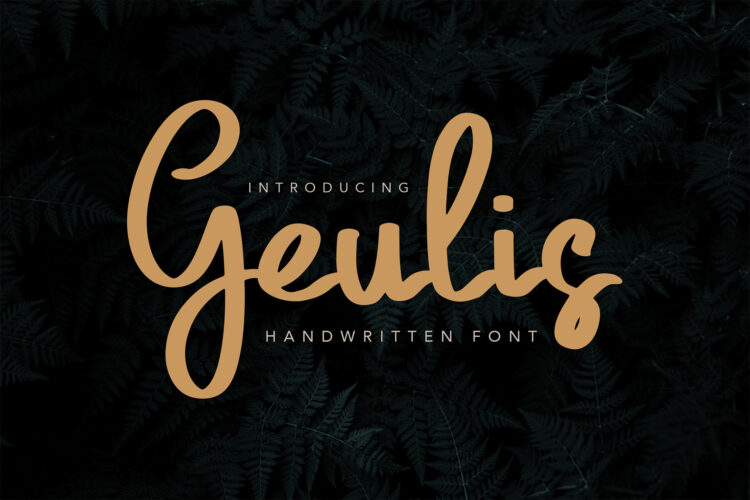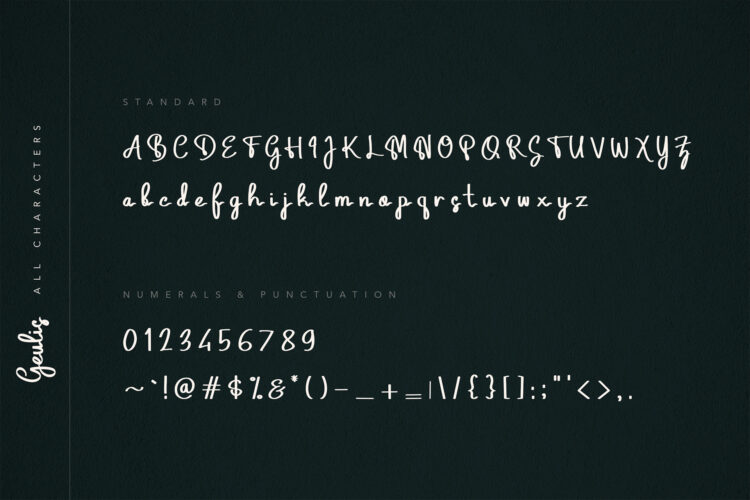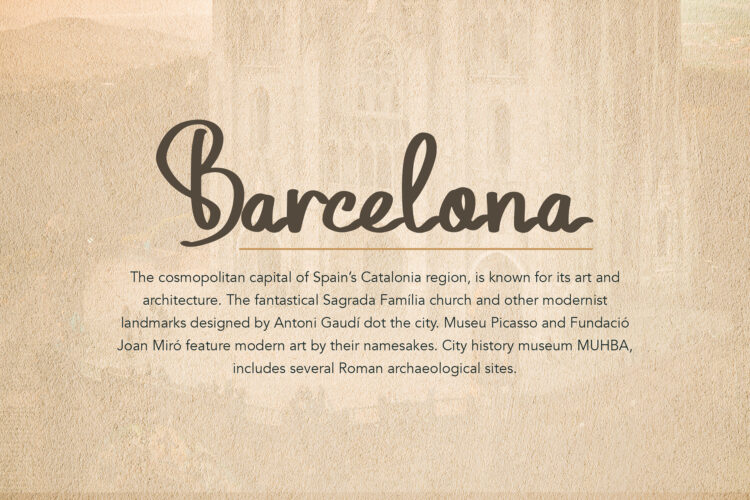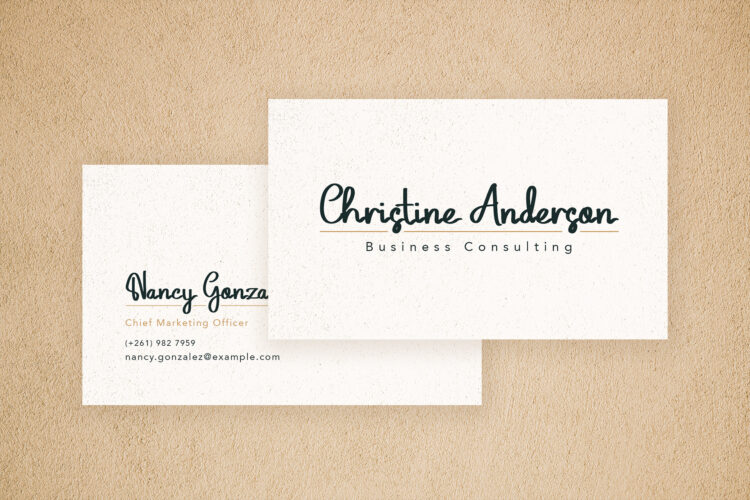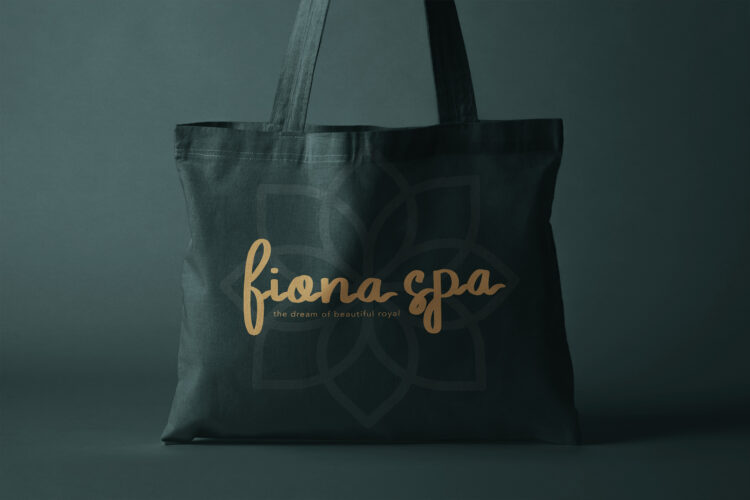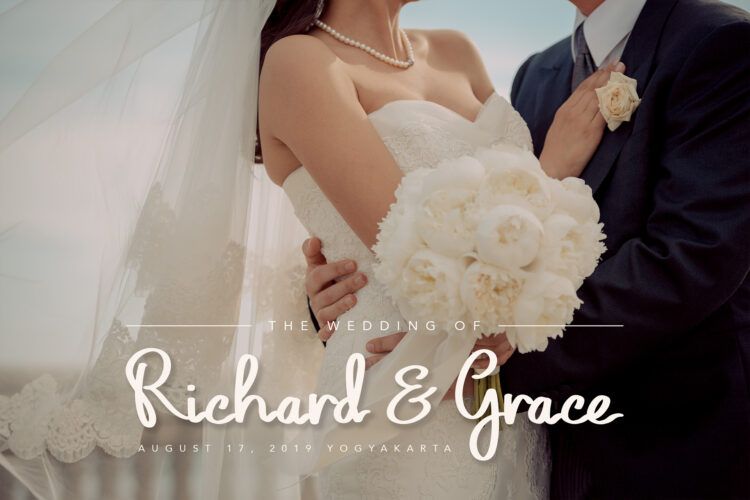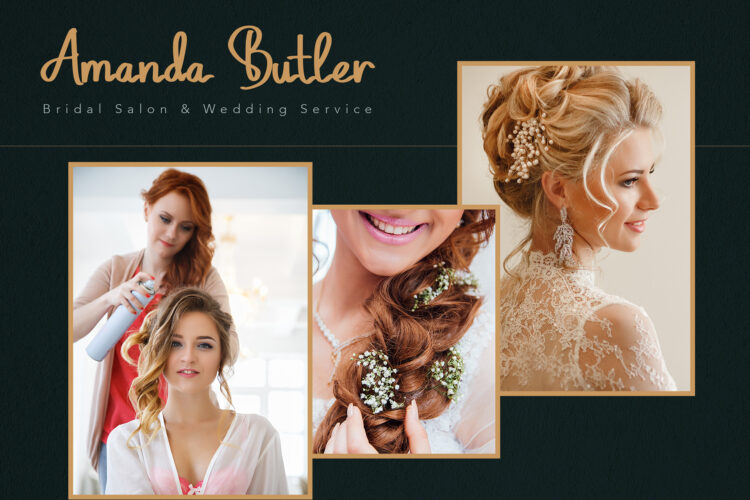
Beauty can be expressed in many ways, one of them is by using Geulis, the beautiful and stylish font we brought to you. This elegant handwritten is perfect for branding projects, print templates, documents, food menus, wedding-themed, product packaging, business card, and many more. It is also suitable for a stylish text overlay to any background image.
Derived from Sundaness, Geulis, which also has a meaning of beauty, offers a stylish font type with an elegant and clean character that perfect for the beauty and clean layout. Every package of this item includes a full set of the alphabet in uppercase and lowercase letters, numbering and punctuation.
Geulis features:
- Stylish font type with elegant and clean character. It is perfect for the beauty and any clean layout.
- Uppercase & Lowercase letters
- Numbering and Punctuation